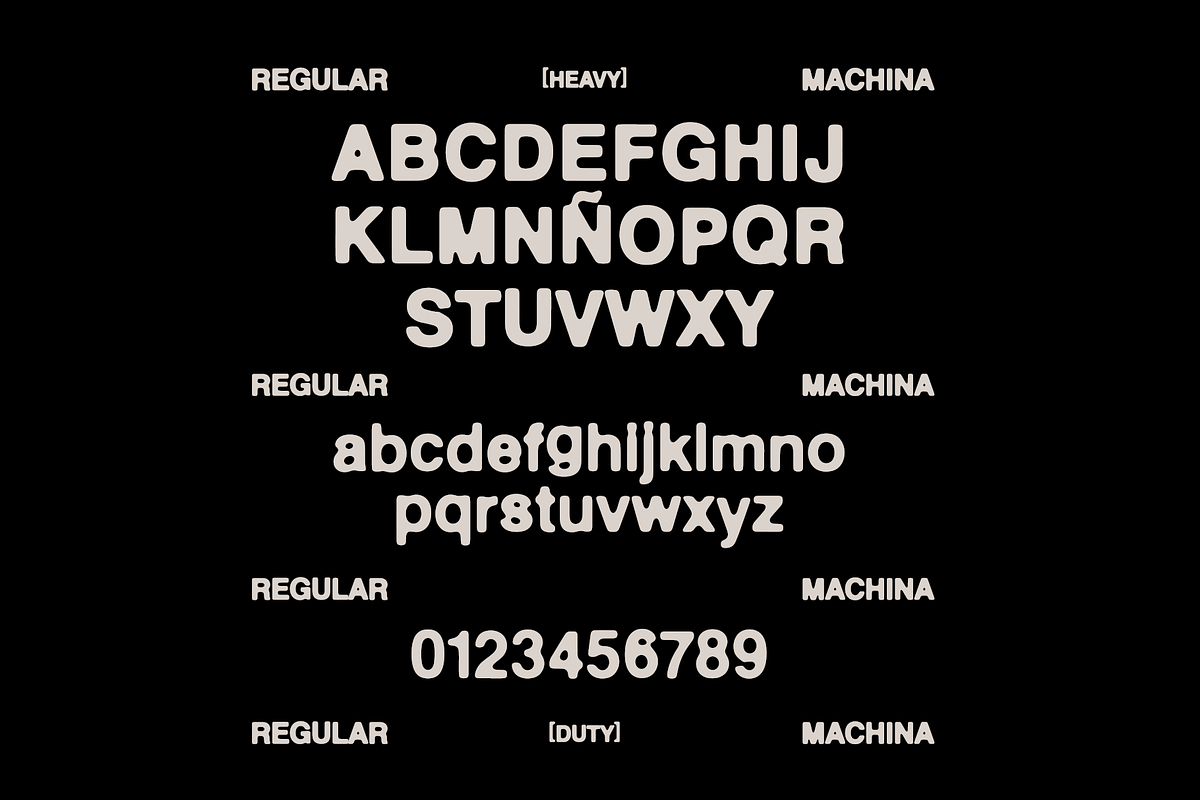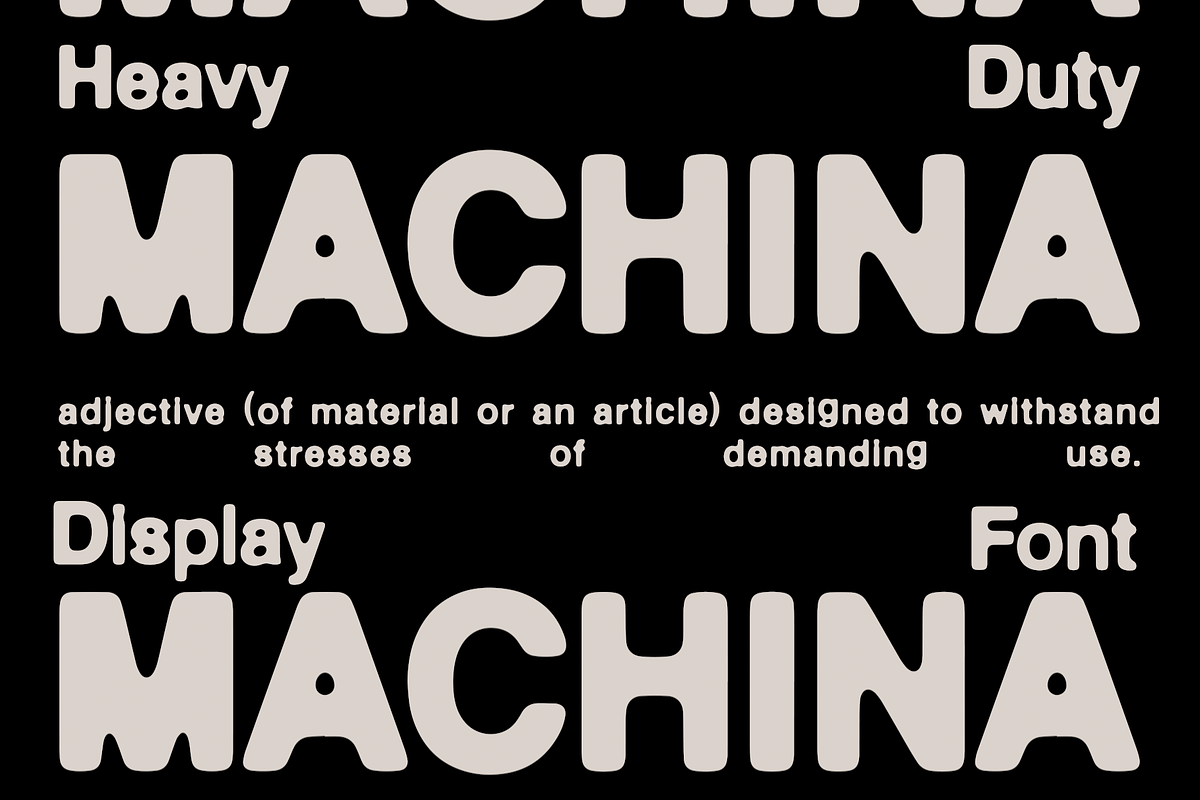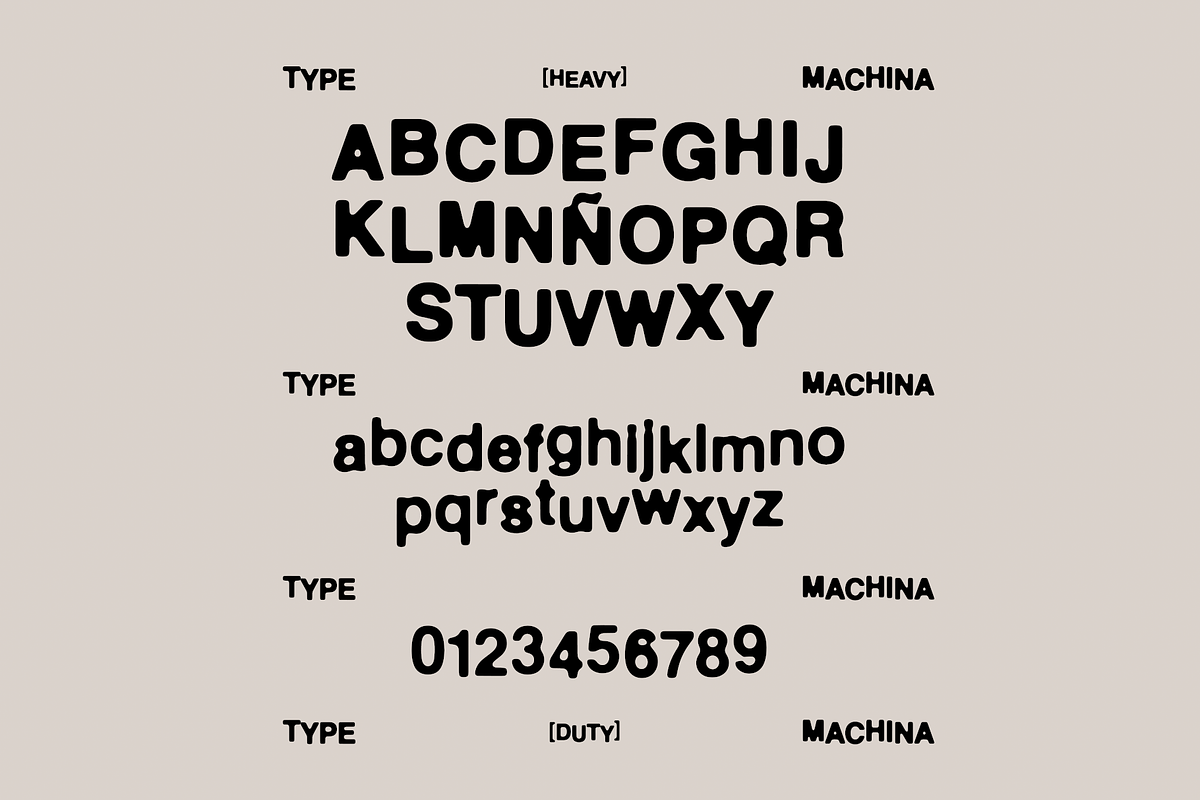
MACHINA
Introducing Machina – the ultimate heavy-duty display font designed to make a bold statement. This powerhouse typeface comes in two versatile variants: Regular and Squeezed, offering you the flexibility to create eye-catching designs that demand attention.
Heavy-Duty Design: Perfect for headlines, posters, and any project that needs a strong visual impact. Two Variants: Choose between the robust Regular or the compact Squeezed version to suit your design needs. Versatility: Ideal for both digital and print media, ensuring your message stands out no matter the medium. Whether you're designing for branding, advertising, or any creative project, Machina provides the strength and presence your work needs to leave a lasting impression. Elevate your designs with the bold, industrial look of Machina – because your typography should be as powerful as your message.